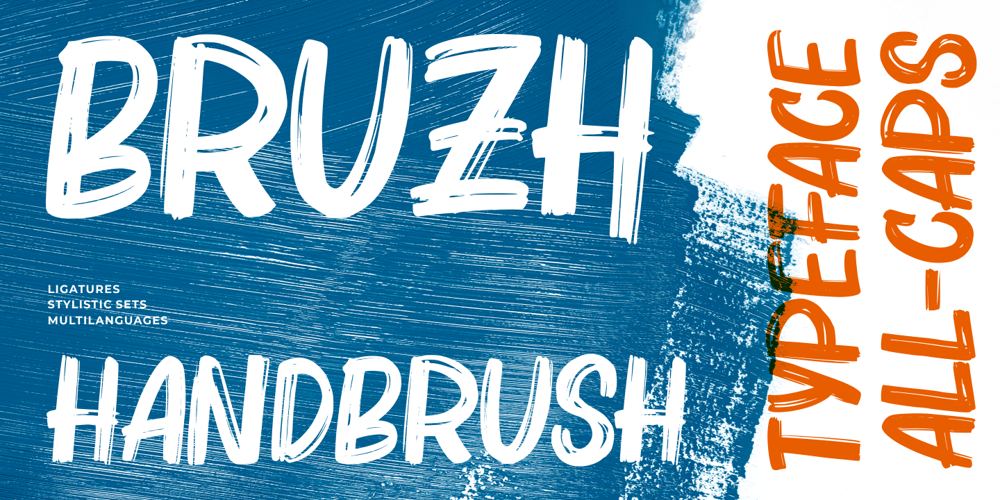
Bruzh Font Family was designed by Risman Ginarwan and published by Garisman Studio. Bruzh contains 1 styles and family package options. BRUZH combines attractive and natural hand-brushed letters with swinging curves and fresh urban edges; delivering a stylish brush which is guaranteed to add an eye-catching appeal to your logo designs, brand imagery, handwritten quotes, product packaging, merchandise & social media posts.